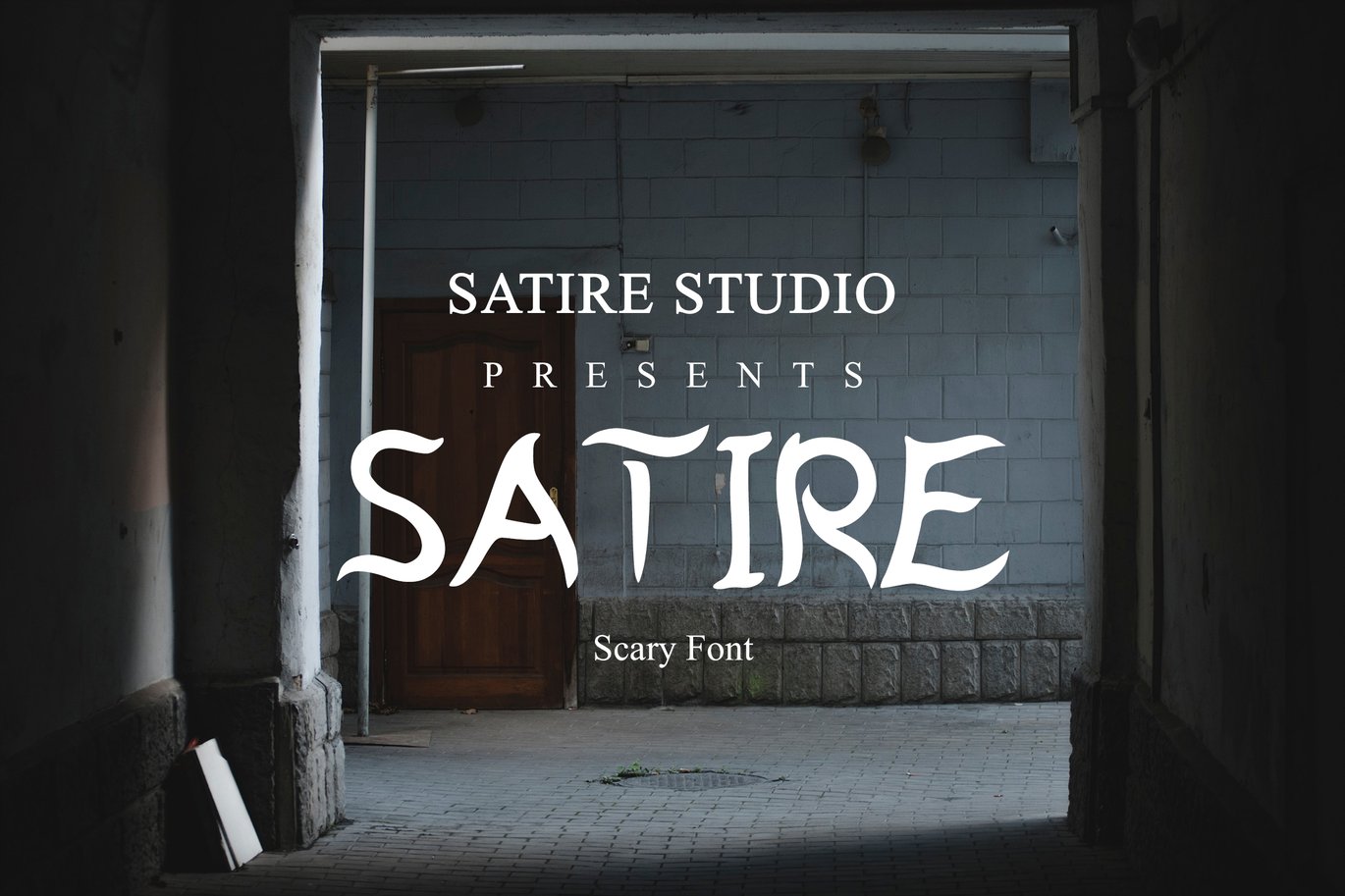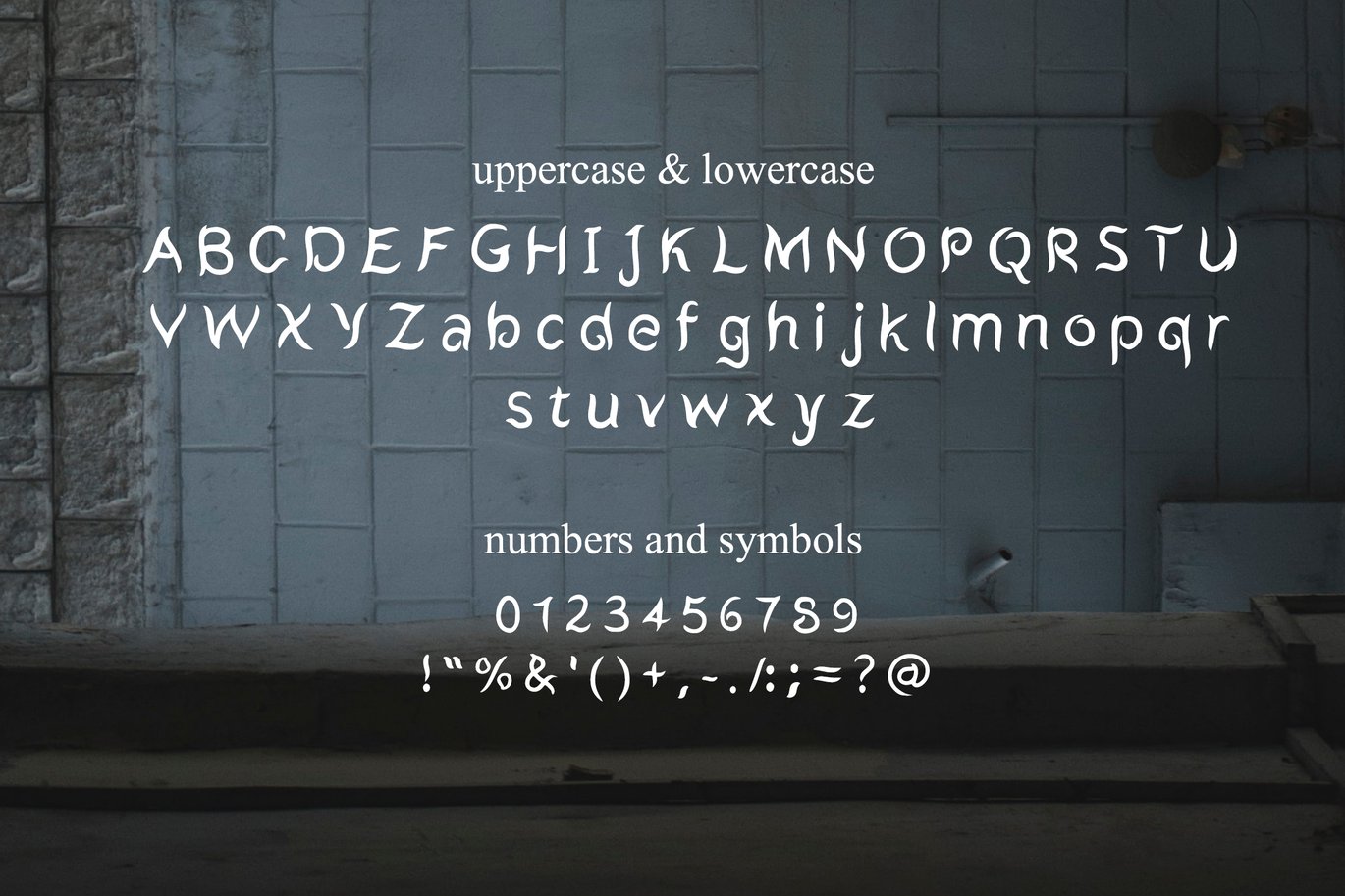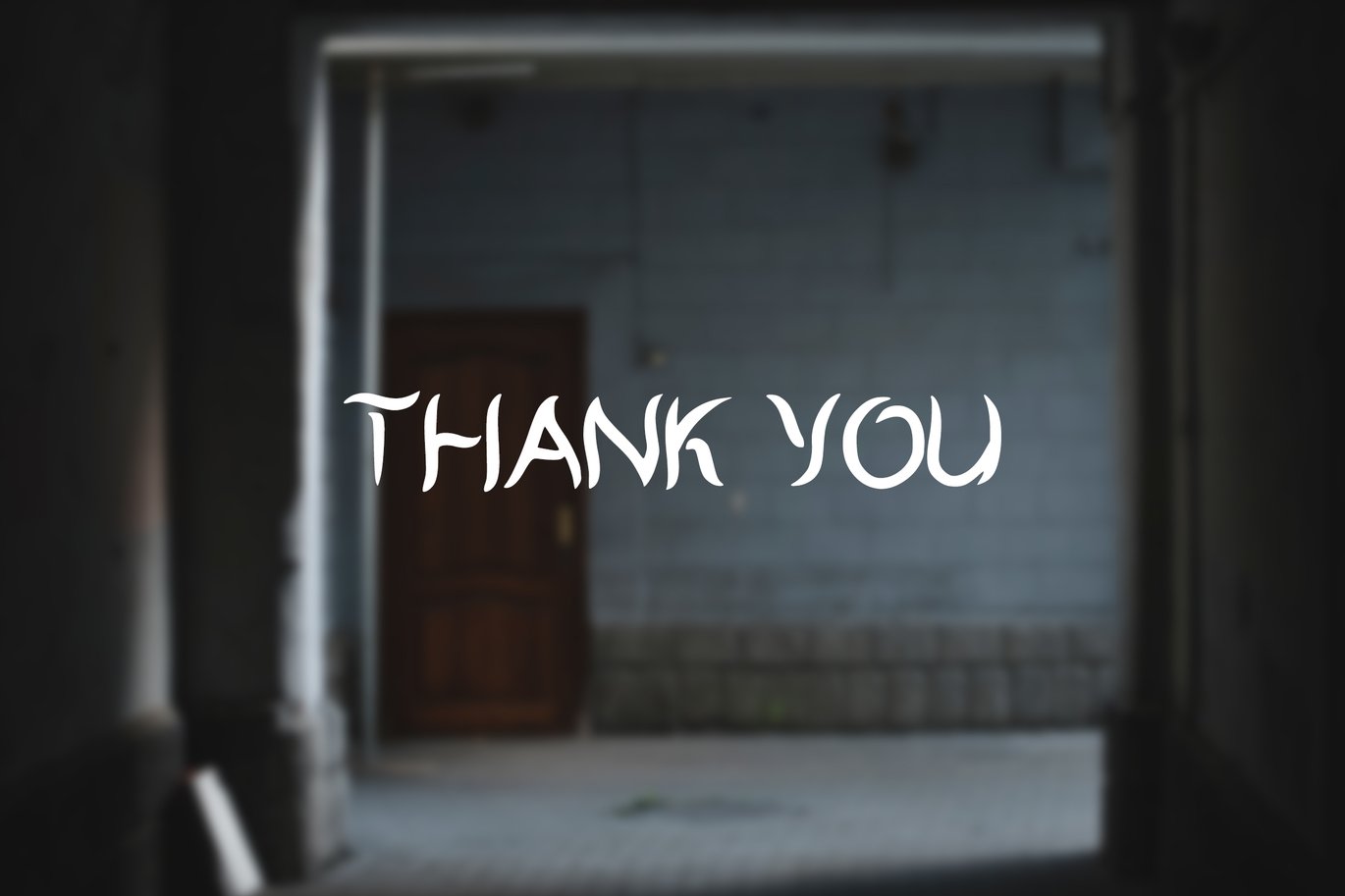
Satire – Scary Font
Satire | Scary Font, So beautiful on invitation like greeting cards, branding materials, business cards, quotes, posters, and more!